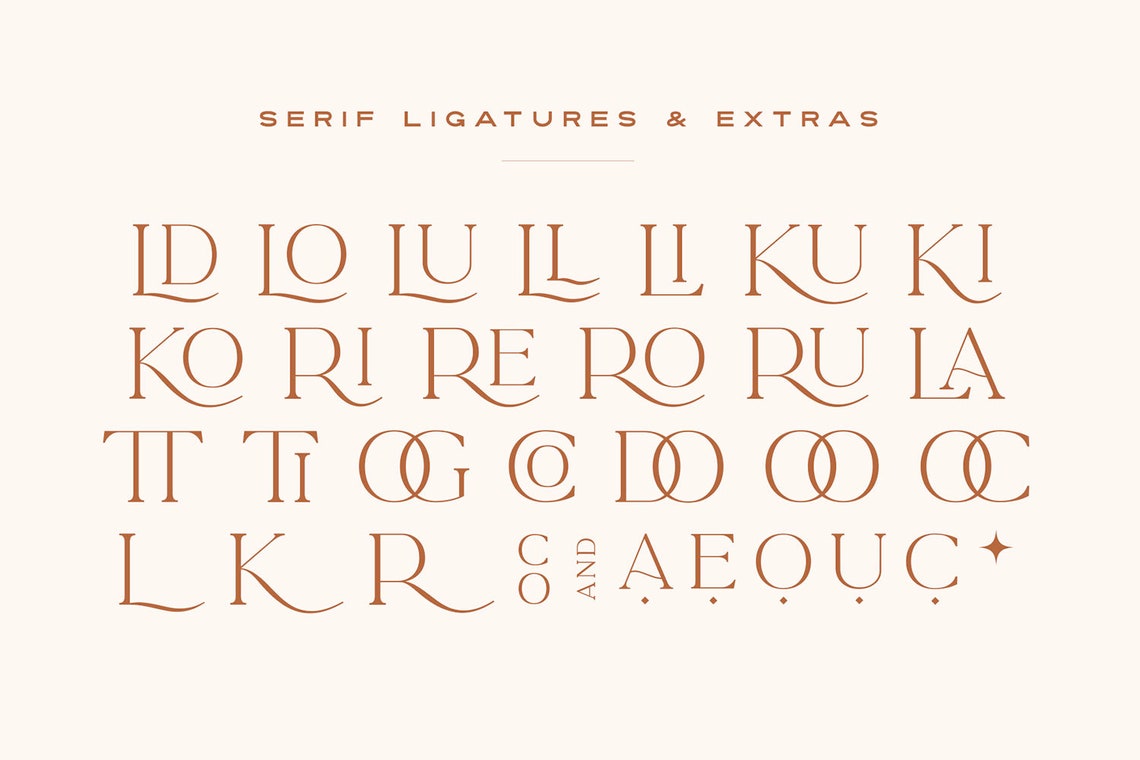
La Luxe Font
La Luxes Fonts and Logo Templates Luxury Script and Serif Etsy
Installable on pc, mac, linux, ios, and android platforms. Indulge yourself in a luxurious typography pairing with la luxes; Discover the free la luxes script font at free font download ! Elevate your designs with la. Indulge yourself in a luxurious typography pairing with la luxes;
Luxe Font By Design District TheHungryJPEG
Indulge yourself in a luxurious typography pairing with la luxes; Elevate your designs with la. Indulge yourself in a luxurious typography pairing with la luxes; Discover the free la luxes script font at free font download ! Installable on pc, mac, linux, ios, and android platforms.